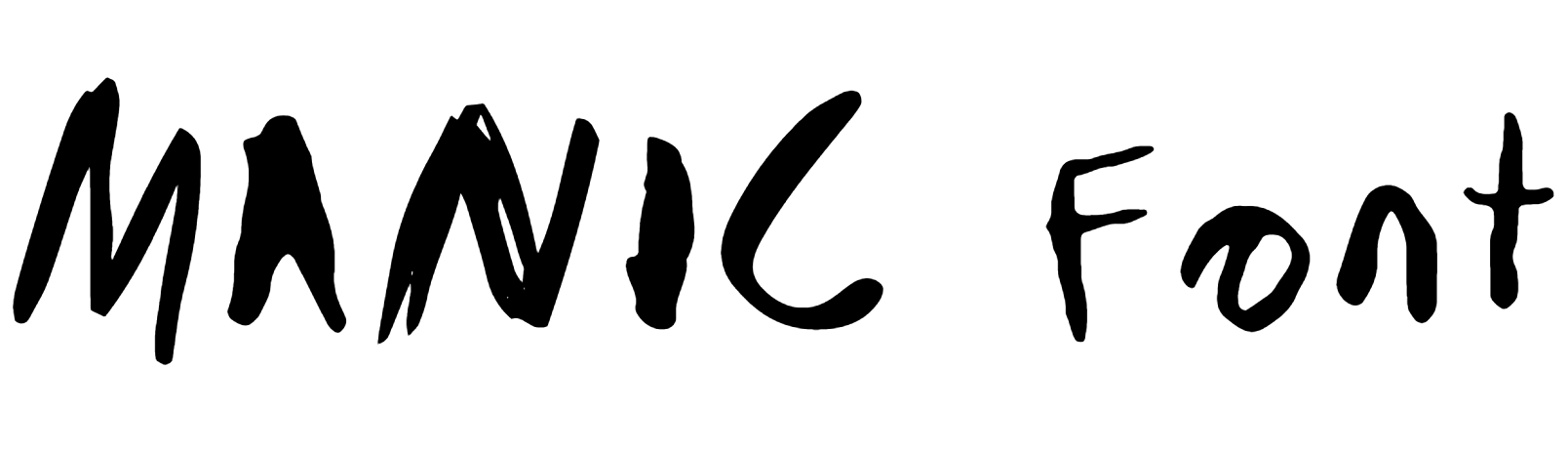
MANIC Font
MANIC
MANIC is a handwritten font created by Laura Eddy and released through TYPEHEIST. It looks like someone actually wrote it by hand: relaxed, friendly and a little imperfect in a good way. The free download includes five styles, and you can try every one of them with your own text in the preview above.
- Designer: Laura Eddy
- Publisher: TYPEHEIST
- Font styles: 5 (Regular, Alternates 1, Alternates 2, Alternates 3 and Sketches)
- Glyphs: 423 in the Regular style
What You Can Type With MANIC
With complete upper and lowercase letters and all ten digits, MANIC is ready for real wording, not just a single headline. Common punctuation such as &, !, ? and @ is included as well. It also has the accented letters you need for Spanish, French, Portuguese and Italian.
Where MANIC Works Best
Think of MANIC for greeting cards, journal pages and friendly social posts. Set it a bit larger than you would a normal text font. Handwriting styles lose their charm once they get too small to read comfortably. Because the family has more than one style, you can mix them in a single design for headings, subheadings and highlights.
Does MANIC support accented letters?
Yes. MANIC includes the accented letters needed for Spanish, French, Portuguese and Italian, so it works for more than just English.